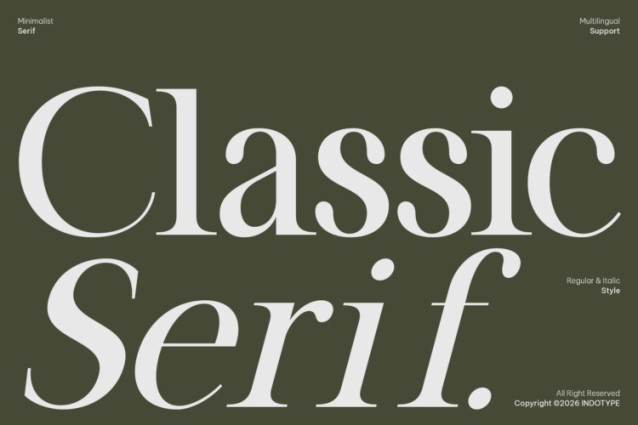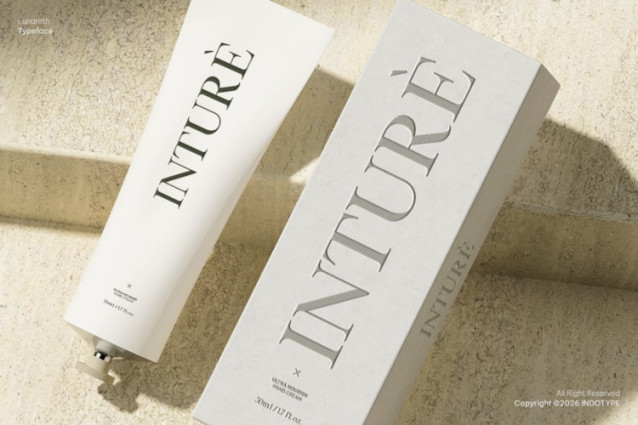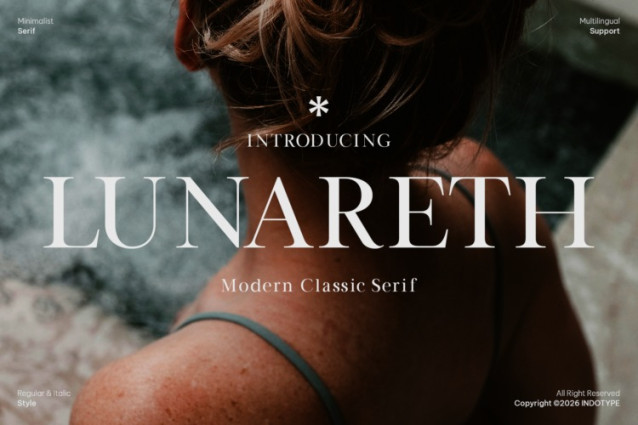
IT Lunareth Font
IT Lunareth Font is a refined serif typeface that reinterprets classic elegance through a lens of minimalist modernity. It strikes a perfect balance between timeless serif structure and contemporary clarity, featuring clean lines, subtle stroke contrast, and impeccable proportions. This delicate fusion results in a font that is both authoritative and accessible, carrying the dignity of traditional print with the freshness of modern design. Designed for sophisticated versatility, Lunareth comes in both Regular and Italic styles and includes extensive multilingual support, making it a truly global tool for premium communication. It is the ideal choice for luxury branding, high-end editorial design, corporate identity for discerning brands, and any project where quiet confidence and refined readability are paramount.